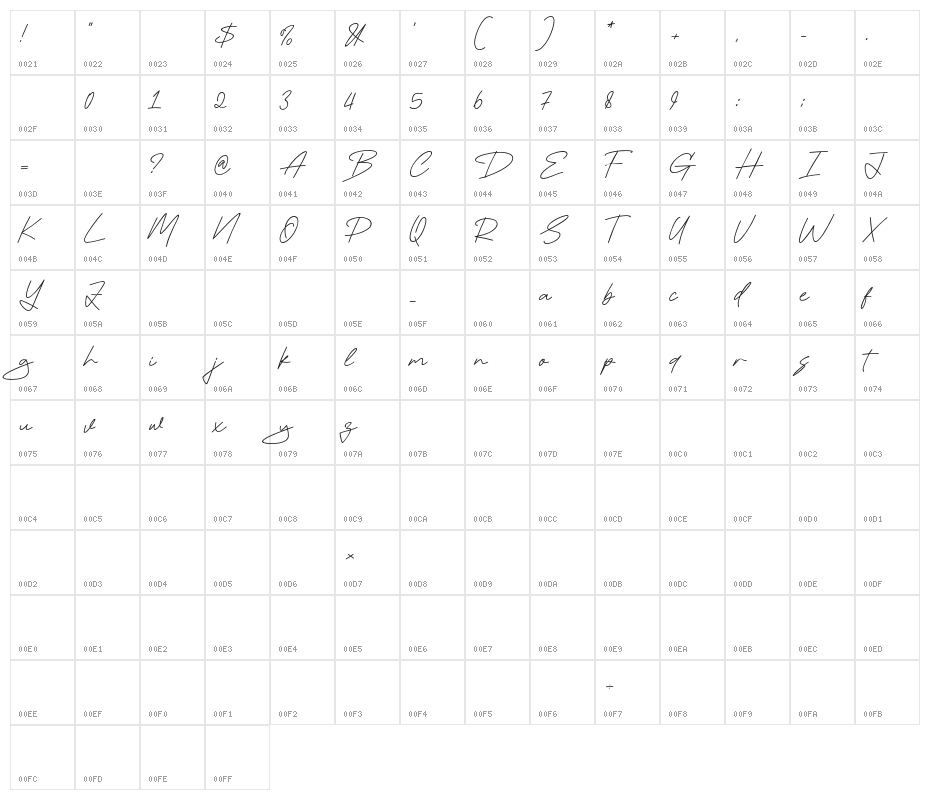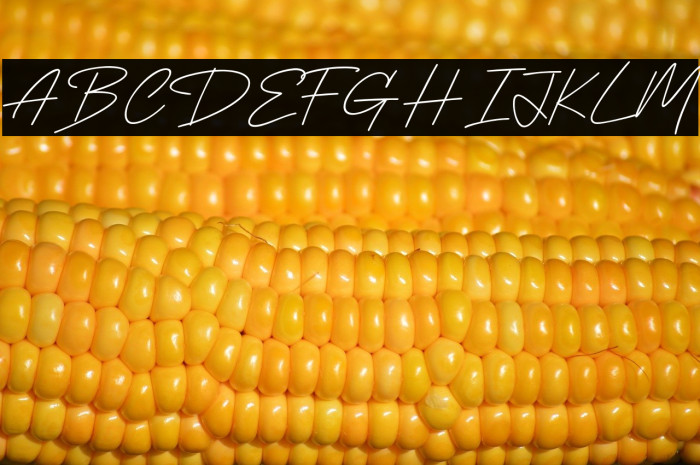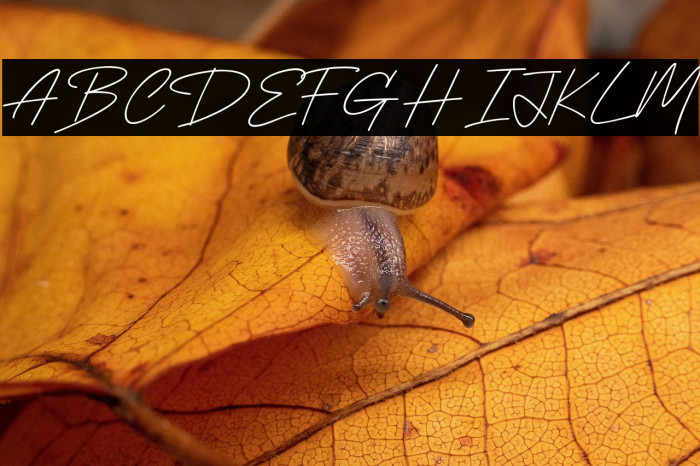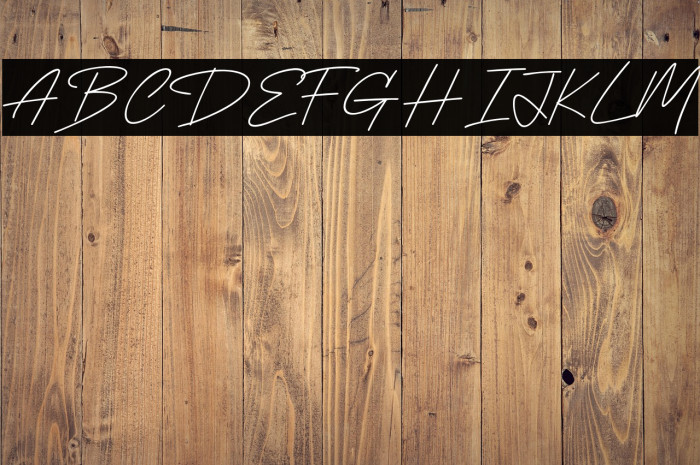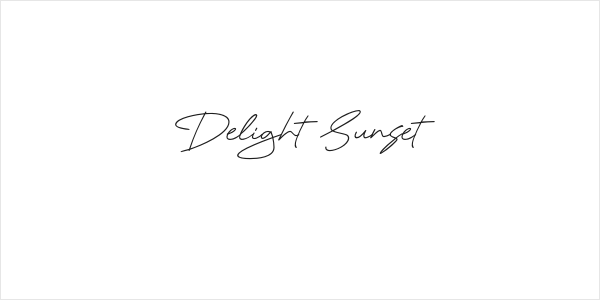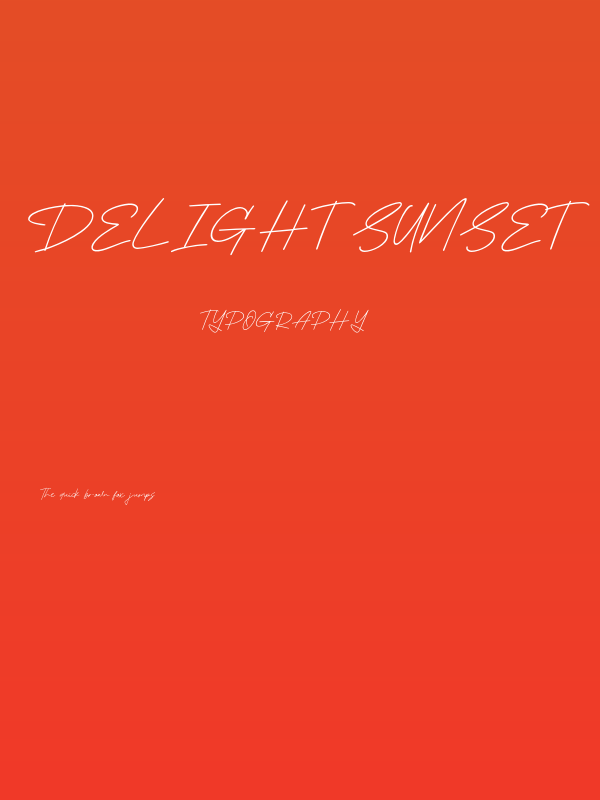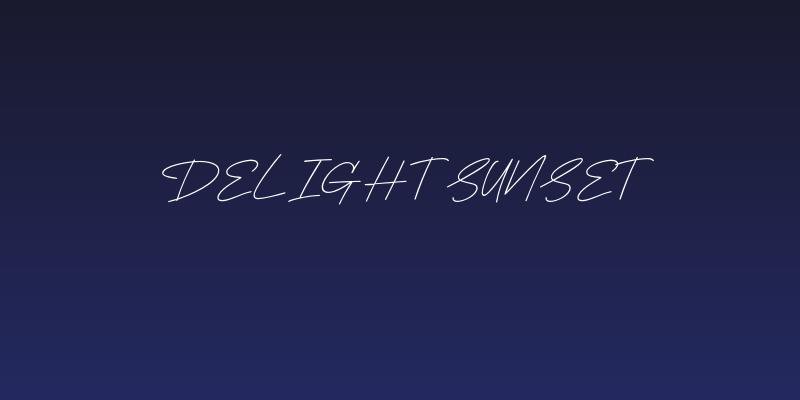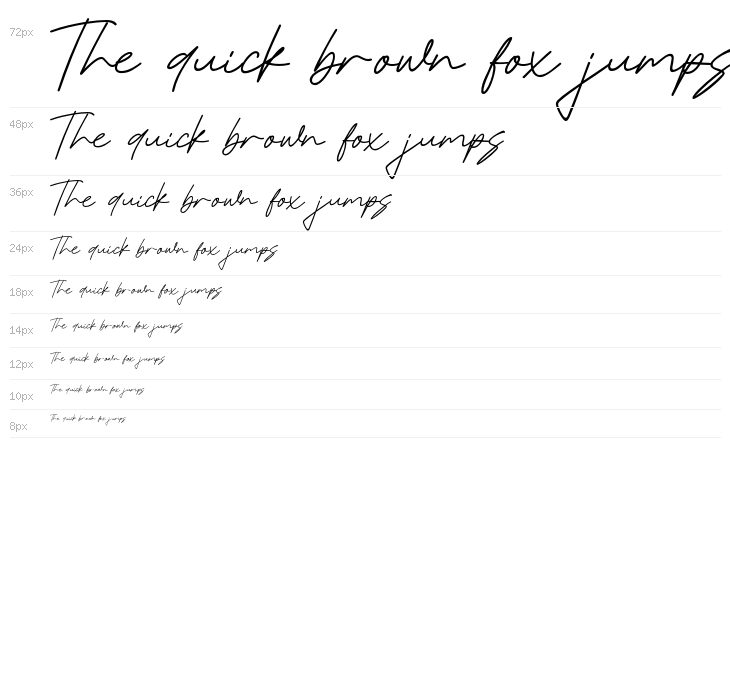
Delight Sunset Font
Delight Sunset Description
This font exudes a sense of elegance and fluidity, characterized by its cursive, handwritten style. The letters are connected with smooth, flowing strokes that give it a natural and personal touch. The uppercase letters are slightly more structured, while the lowercase letters maintain a consistent, graceful flow. The numerals and special characters follow the same fluid design, ensuring a cohesive look across all elements. The overall appearance is sophisticated yet approachable, making it suitable for a variety of creative projects.
| Overall Style | Elegant, Personal |
| Use Case | Invitations, Branding, Greeting Cards |
| Proposed Projects | Ideal for wedding invitations, personal branding, greeting cards, and elegant logos. |